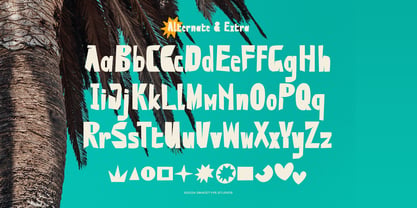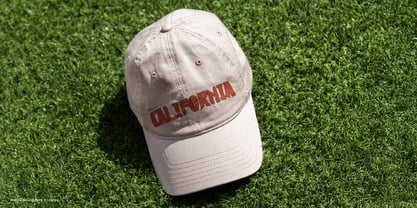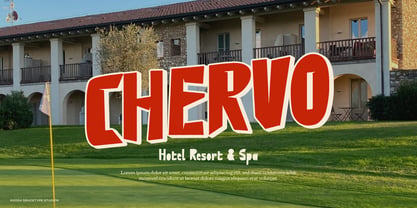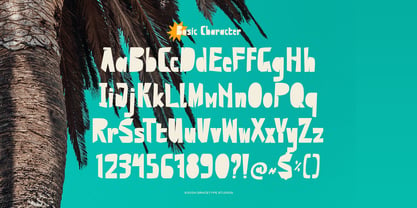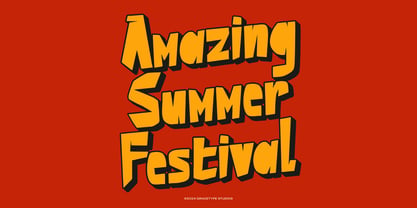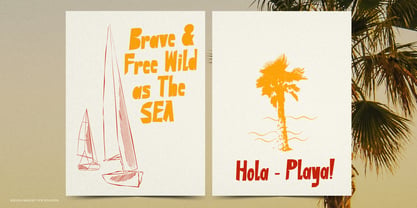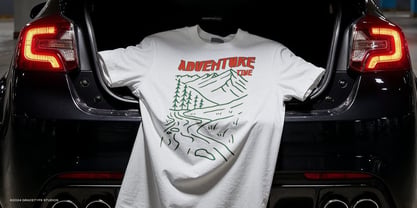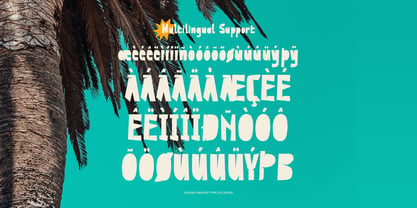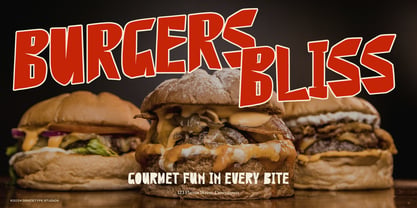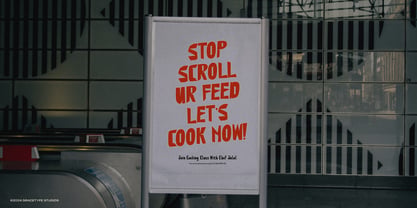
Imperfect Cut
by Tini Fitriani
The Imperfect Cut Font Family was designed by and published by Tini Fitriani. Imperfect Cut contains 1 styles. More about this family
Imperfect Cut | Cutout Handwritten, from Gracetypestudio, suitable for any projects such as: logos, branding projects, homeware designs, product packaging, mugs, quotes, posters, shopping bags, t-shirts, book covers, name card, invitation cards, greeting cards, label, photography, watermark, special events, and all your other lovely projects that need a Cutout Handwritten taste.